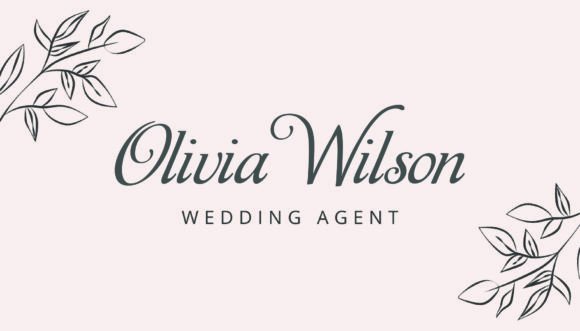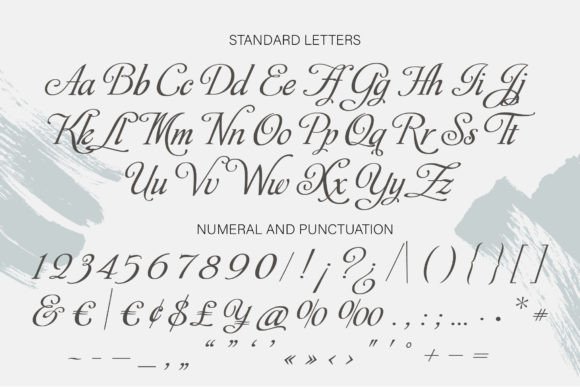
Anastasia Font
Introducing Anastasia, a sophisticated blend of elegance and professionalism. This italic font with serifs offers a cursive-inspired feel without the typical connected script, striking the perfect balance between traditional charm and modern design. Ideal for corporate branding, elegant invitations, and refined wedding designs, this font exudes a timeless sophistication that elevates any project. With its graceful curves and distinct serifs, this font adds a touch of class and sophistication, making it a versatile choice for a variety of applications.